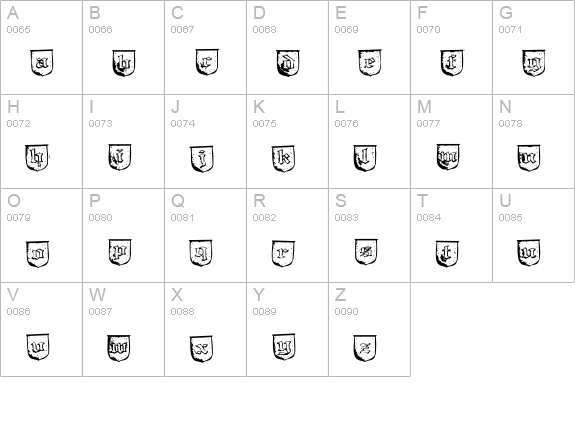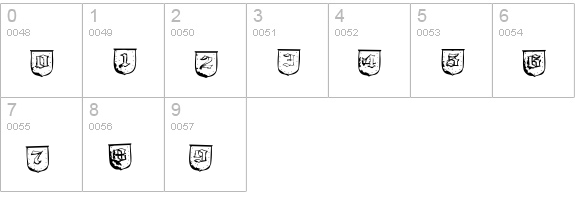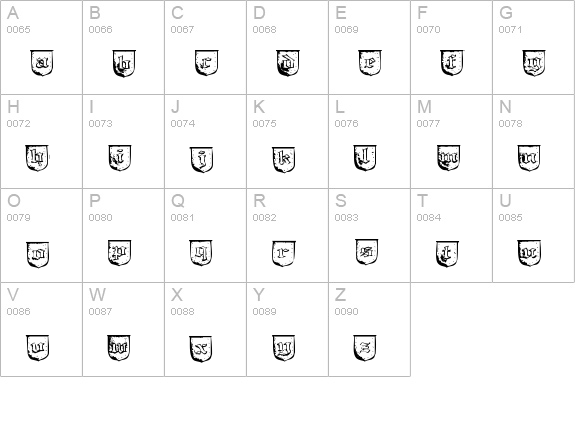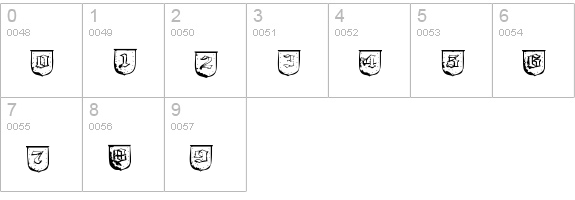
Troll Bait Font Details
Introducing Troll Bait font, a captivating and whimsical typeface that is sure to add a touch of mischief to your designs. Designed with intricate details and playful curves, this font is perfect for unleashing your creativity and making a bold statement. Troll Bait font is the result of a perfect fusion between modern design and the enchanting allure of fantastical creatures. Its unique and eye-catching letterforms are inspired by the mischievous trolls of folklore, adding an element of intrigue and charm to your projects. Whether you're designing a poster for a magical event, creating an invitation to a whimsical party, or adding a touch of quirkiness to your branding, Troll Bait font is the perfect choice. It effortlessly captures the essence of adventure and curiosity, inviting your audience to explore your message further. But what makes Troll Bait font even more enticing is that it is available for free! Yes, you read that right. This delightful font can be freely downloaded at FontsMarket.com, offering you the opportunity to bring a touch of magic to your designs without breaking the bank. With its extensive character set and multiple weights, Troll Bait font offers endless possibilities for your creative endeavors. Whether you choose to use it for headlines, subheadings, or body text, its legibility and charm will never fail to captivate your audience. So why wait? Download Troll Bait font today from FontsMarket.com and let your imagination run wild. Unleash the magic of this enchanting typeface and watch as your designs come to life with a dash of whimsy and a sprinkle of mischief.